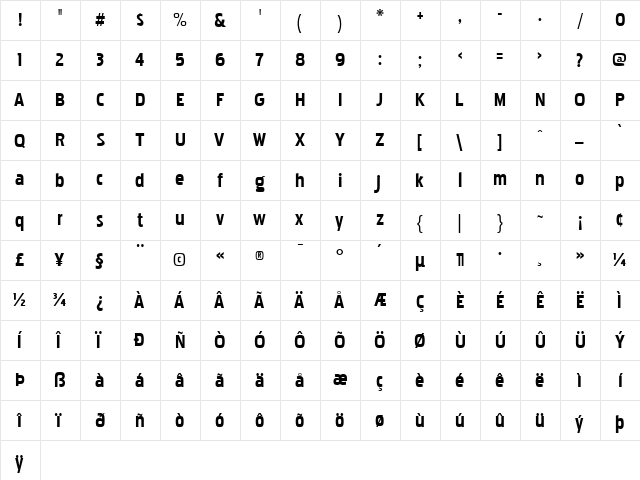
Pakenham Bold Font Preview
Pakenham Bold
Pakenham Bold Font Details
Design Context for Pakenham Typeface
Pakenham offers clean, dependable letterforms without strong stylistic allegiance, making it a practical choice for designers who need flexibility. Its bold stroke weight gives it real presence on the page.
Pro Tip: Pair Pakenham with a font of contrasting weight or personality to build a more expressive typographic hierarchy.